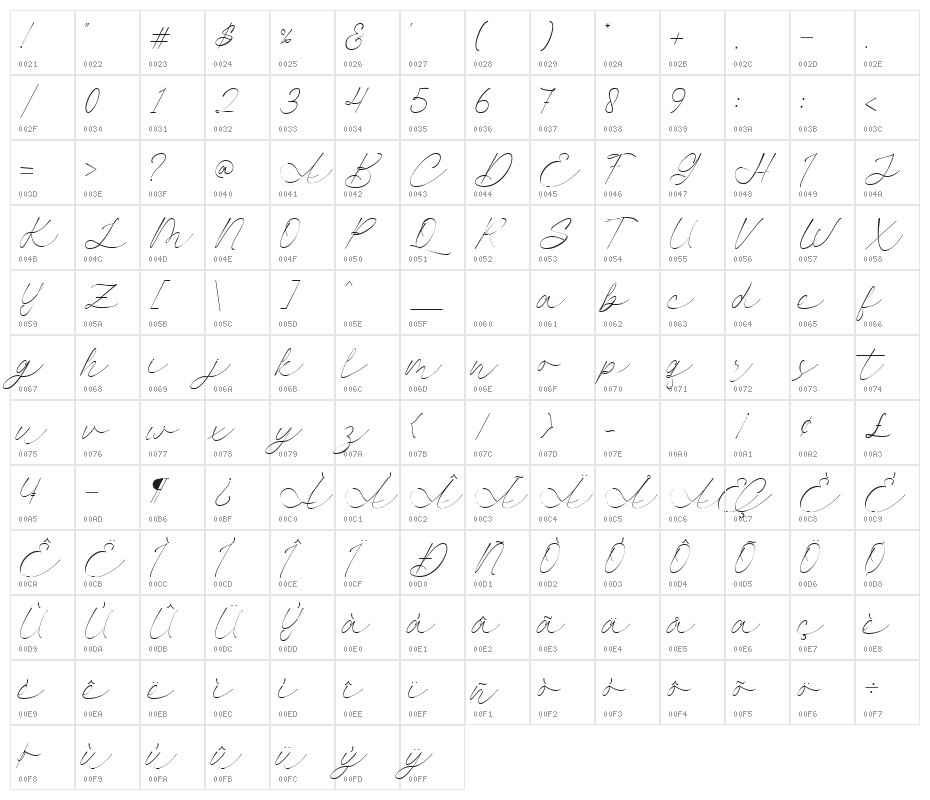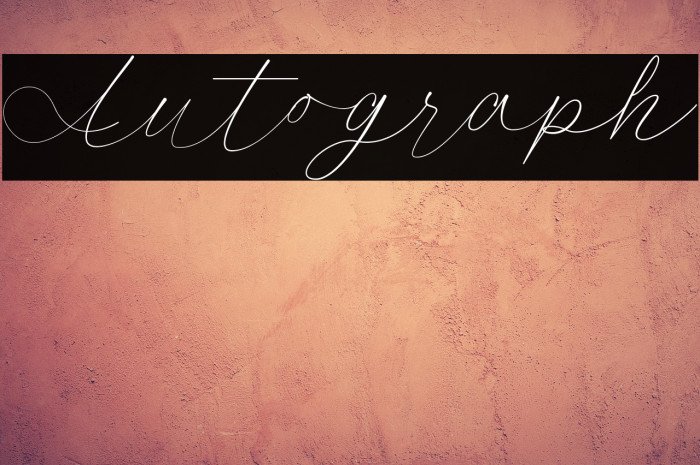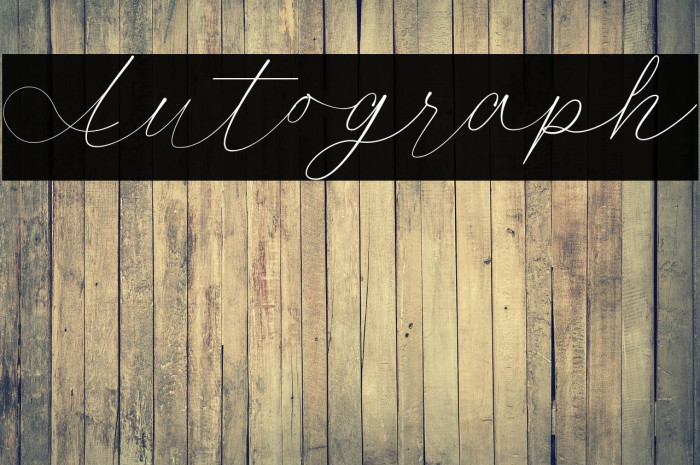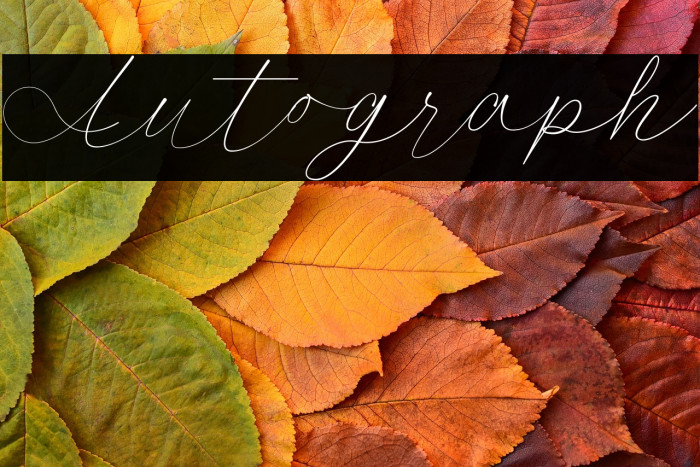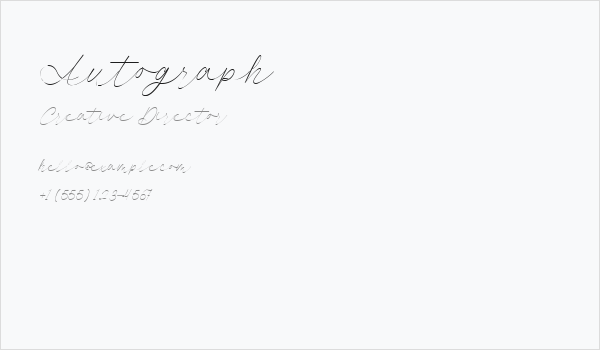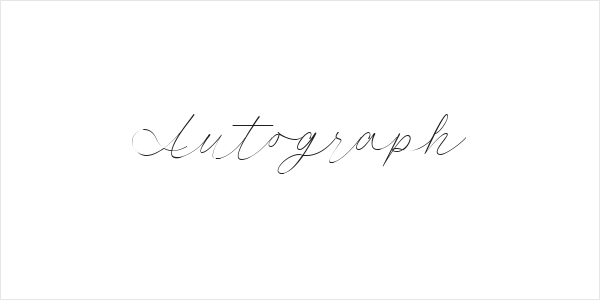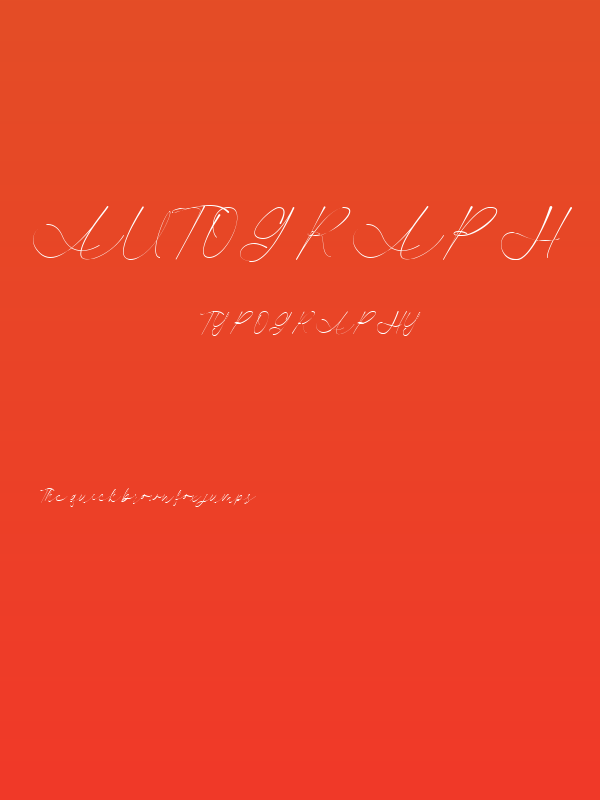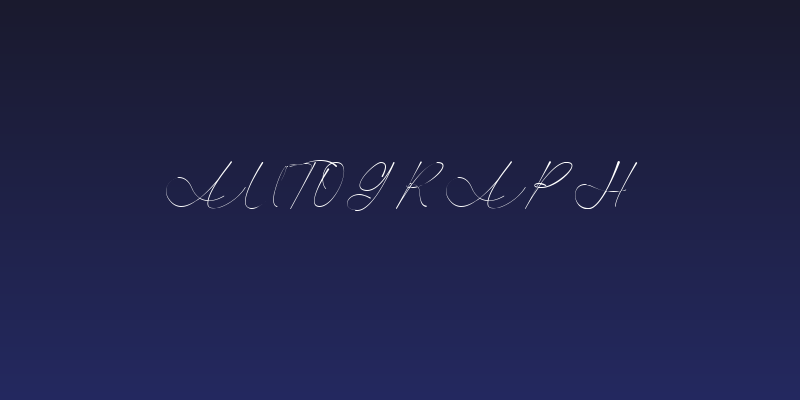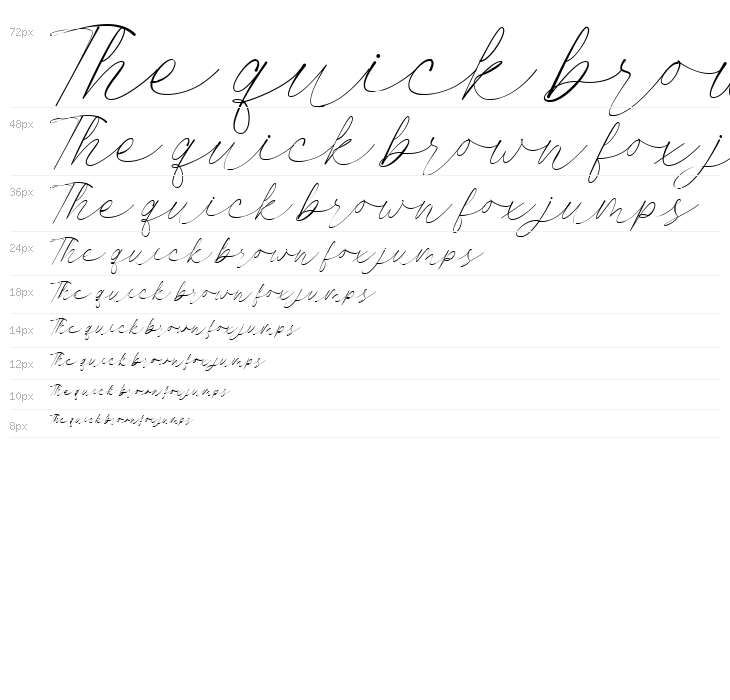
Autograph Font
Autograph Description
A flowing, elegant script font with a handwritten style, featuring smooth, connected strokes and a delicate appearance.
| Overall Style | Elegant, Handwritten |
| Use Case | Logos, Invitations, Personal branding |
| Proposed Projects | Invitations, greeting cards, personal branding. |